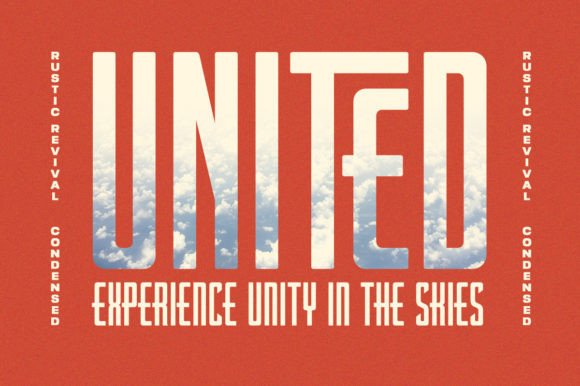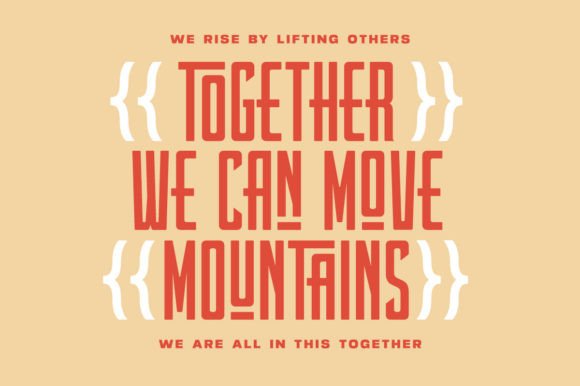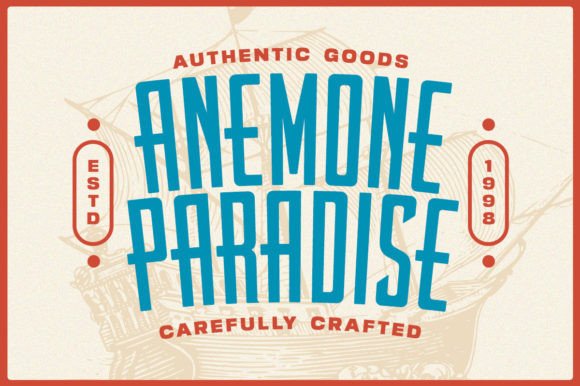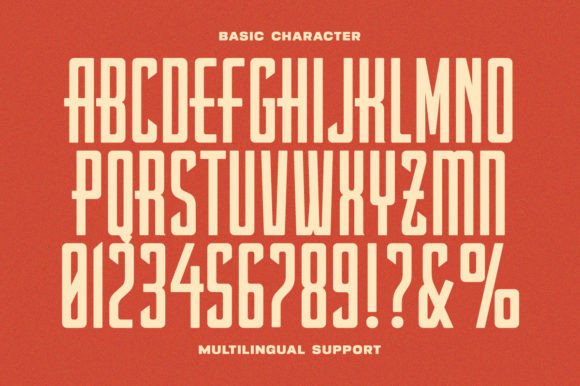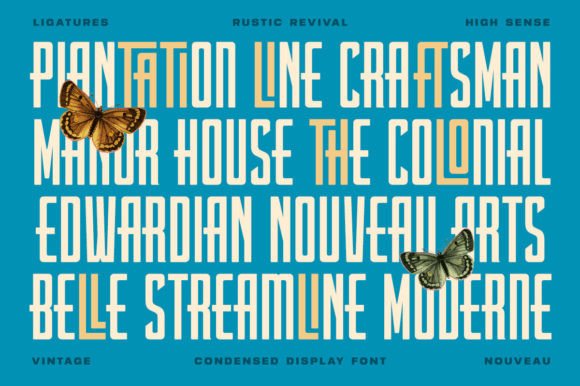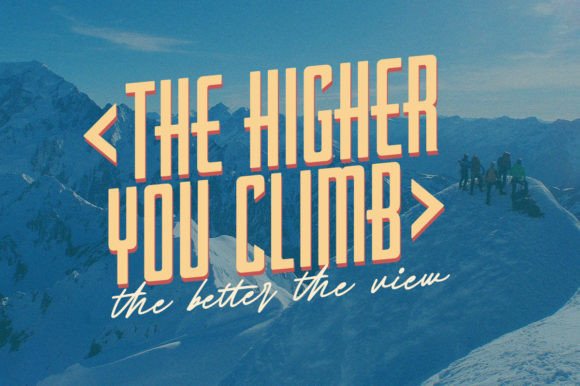
Discover the Charm of Rustic Revival Font
As designers, we’ve all been there – staring at a blank canvas, trying to come up with the perfect concept for a creative project. The words flow, but the design just doesn’t quite feel right. That’s where the right font can make all the difference. For me, it’s always been about finding that one font that captures the essence of my design and sets it apart from the rest. And that’s exactly what the Rustic Revival Font does.
With its unique ligature option and PUA encoded glyphs, this font is a game-changer for any designer looking to add a touch of classic charm to their work. Whether you’re creating eye-catching posters, attention-grabbing banners, or impactful headlines, the Rustic Revival Font is sure to leave a lasting impression. And the best part? It’s available for free download, making it an essential design resource for any creative project.
Key Features of Rustic Revival Font
- Unique blend of vintage and modern design elements, perfect for a creative project that requires a touch of elegance and sophistication.
- Available in a range of sizes, including small caps, caps, and lowercase, making it versatile for use in various design contexts.
- Perfect design resource for those looking to add a touch of rustic charm to their designs, whether it’s a logo, typography, or branding material.
Honest Review: Rustic Revival Font
I recently had the chance to work with the Rustic Revival Font, and I must say it’s been a delightful addition to my design toolbox. This font is perfect for any creative project that requires a touch of warmth and character.
- ✨ High-quality design: The Rustic Revival Font boasts a high level of detail and nuance, making it perfect for designs that need a premium feel.
However, I did encounter a few limitations while working with the Rustic Revival Font.
- ⚠️ Limited font weights: While the font has a great selection of styles, I wish there were more font weights available to create more depth and contrast in designs.
- ⚠️ Not ideal for small text: The Rustic Revival Font is best suited for larger text sizes, as the details can get lost at smaller sizes.
Overall, I’m really impressed with the Rustic Revival Font. It’s a fantastic design resource that adds a unique touch to any project. With a few tweaks to address its limitations, I think it has the potential to become a go-to font for designers of all levels.
To maximize the effectiveness of the Rustic Revival Font, experiment with different font sizes, colors, and combinations to create a unique visual identity for your project. This versatile font is ideal for creating invitations, posters, and other creative materials.
The Rustic Revival Font is commonly used for:
Outdoor events and festivals
Home decor and furniture design
Food and beverage branding
Creating a vintage or rustic aesthetic in your design project
Compared to Rustic Revival Font, Alexandra Script has a more refined and sophisticated look, making it suitable for more formal designs. While Rustic Revival Font has a distressed, vintage feel, Alexandra Script is more polished and elegant.